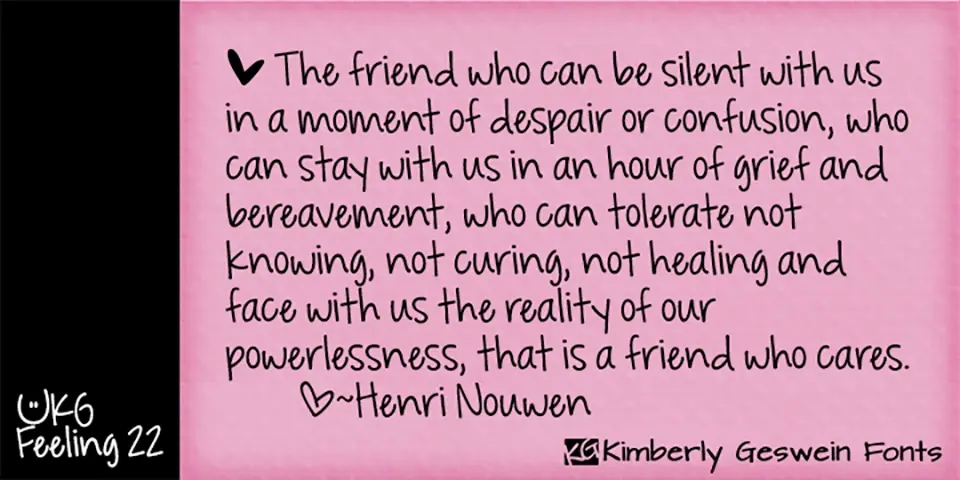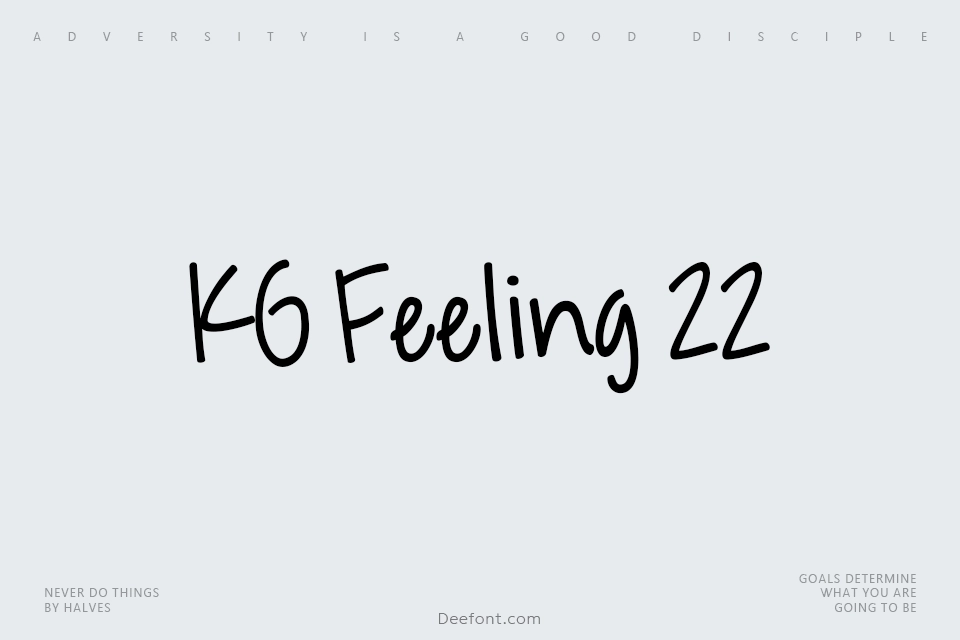
KG Feeling 22 Font
KG Feeling 22 is a smooth handwritten font with a confident feminine vibe, designed to add warmth and charm to your projects. This cheerful flowing typeface captures the playful handwriting of a college student, making it perfect for cards, invitations, posters, and creative designs. With its whimsical nature and smooth curves, KG Feeling 22 brings a personal touch to any project that needs elegance and character. The font supports most Latin-based languages and works beautifully across various creative applications.